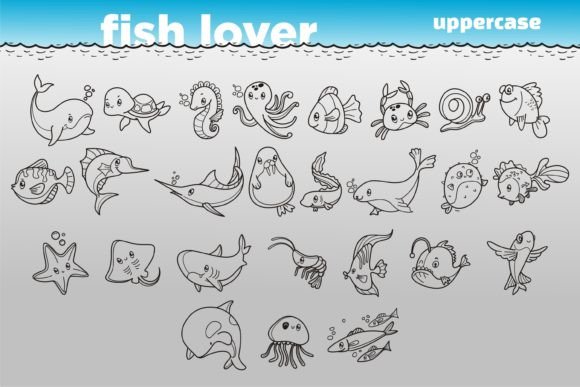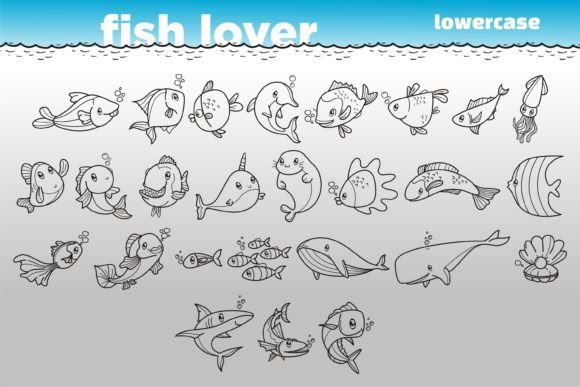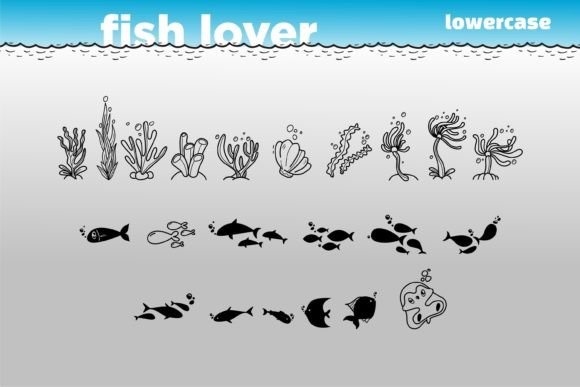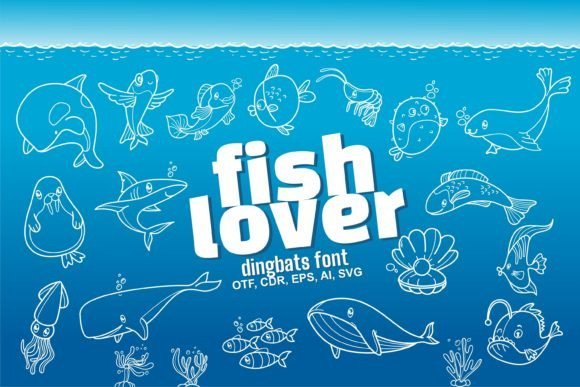
Introduction to Fish Lover Font
Fish lover is a uniquely designed dingbats font that is cute and can be used in a variety of styles.
Why Choose Fish Lover Font?
Fish Lover Font offers exceptional quality and versatility, making it a valuable addition to your design toolkit. Whether you’re creating for personal projects or commercial use, Fish Lover Font delivers professional results.